Every font tells a story. Once upon a time, serifs ruled the world. Looking at them today, we can’t shake the feelings of tradition and elegance. Then, we switched to sans-serifs, which are practical and highly readable. Fonts that amplify your message.
Today, we use all types of fonts. Serifs for elegant materials, sans-serifs for making sure our words resonate, and script fonts for that unique aesthetic. While the stakes are always high when it comes to fonts, they are never as high when it comes to logo design.
If you want to create a stunning logo, you need a stunning font. So today, we’re bringing you a collection of forty of the best fonts for creating stunning logos that will show your clients how well you understand their brands.
From tall and thin serifs that radiate elegance to flowery script fonts that stand out from the crowd, there’s plenty to pick from. Find the right font for your next project, make that logo stand out, or simply give your clients more options to choose from when creating their brand identity.
After all, if you find the right font, you won’t have to keep looking. And the font you choose will become a part of your clients’ brands as much as their products are. From logos to web display, let one of these stellar logo fonts become a go-to resource in your branding kit. Let’s dive in!
How to Choose the Perfect Logo Font
Choosing the right logo font takes more than picking something that looks good. It needs to match the brand, stay readable at all sizes, and work across different formats.
This checklist covers those key things you should check when selecting a logo font, with practical examples to help.
- Match the font to the brand’s tone. For a serious brand, try a serif font like Miller or Tiempos. For a casual brand, consider something softer like Avenir Rounded or Quicksand.
- The font must be easy to read. Fonts like Helvetica, Nord, Inter, or Jaquel are clean and clear.
- Test the brand name in all caps and lowercase. Fonts like Futura and San Marino hold their shape well in both.
- Check how the font looks when small. Proxima Nova, Just Sans, and Roboto are classic fonts that stay readable in smaller sizes.
- Make sure the font works in black and white. A logo should hold its shape and clarity without relying on color.
- Look at the spacing between letters. Fonts with good default spacing include Gotham, Nunito, and Twig.
- Use high-quality fonts. Premium fonts often have better spacing, weights, and character sets than free ones.
- Test the font with other parts of the logo. It should work alongside an icon or tagline without feeling out of place.
- Avoid trendy or popular fonts. Stick with fonts that feel neutral and balanced, like Graphik, GT America, or Libre Franklin.
- Use unique or ornate fonts carefully. An overly stylized font can help a logo feel more personal, but it still needs to be readable and scalable.
Minimal Logo Fonts
Minimalistic logo fonts work well for businesses like law, finance, or healthcare, where professionalism, simplicity, and clarity are essential. It also suits tech startups that want a modern, streamlined brand image.
Jaquel Minimal Display Logo Typeface
Jaquel is a fun logo font inspired by geometric principles. It could be perfect for the logo design of modern companies, from tech to fashion. You’ll get four different weights and a web font.
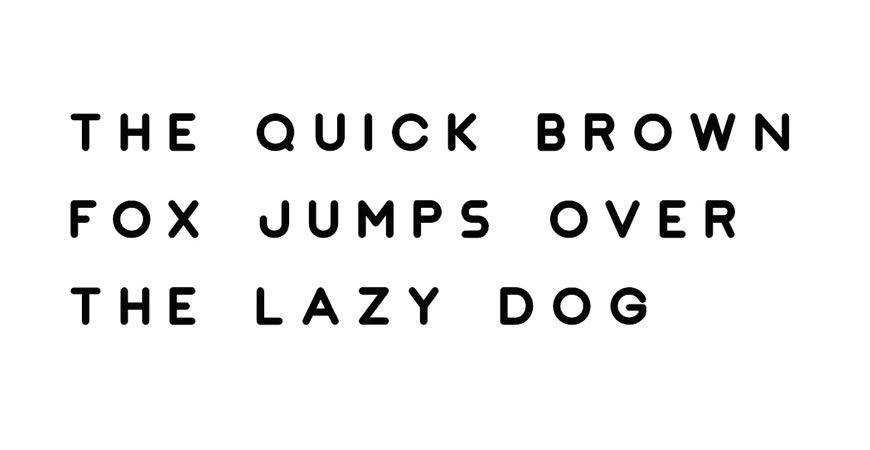
Impulse Logo Typeface
Simple and modern, with plenty of variations, Impulse is an excellent choice for your next logo project. It comes with four different weights, which give its sans-serif nature an added flair.
Nord Minimal Display Logo Typeface
Nord is a minimalist logo typeface that radiates elegance and simplicity. With seven different weights, it would be a fantastic addition to your branding and logo design toolkit.
San Marino Typeface for Logo Design
San Marino is an elegant geometric font perfect for modern brands that want to leave a great first impression. It comes in different font styles, including versions with vibrant outlines.
Monogram Logo Fonts
Monogram fonts typically appeal to businesses with a long history or those wanting to express tradition and sophistication. They are favored by luxury brands, law firms, and educational institutions. They add elegance and help create a memorable brand identity.
CAOS Monogram Logo Typeface
CAOS is a monogram logo font like no other! You can use it as the primary font for your logo or use the decorative characters as symbols. This decorative logo font is one of a kind.
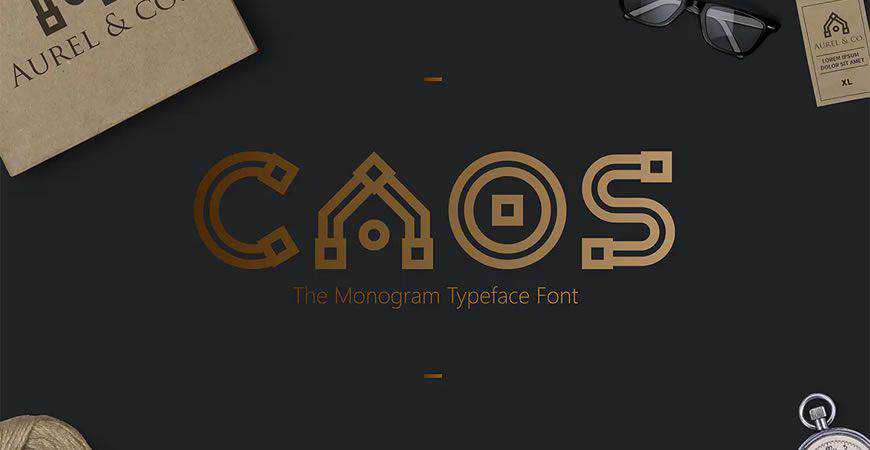
Instead, all you have to do is browse this collection, find the perfect font, and show your client the magnificent work you’ve done. You know what they say: first impressions matter. It’s time to make sure your logo shines!